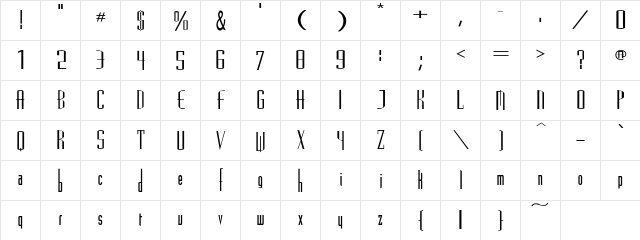
Picassos Expanded 2 Regular
Design Context for Picassos Expanded 2 Typeface
Picassos Expanded 2 takes a measured approach to typography — its balanced proportions and neutral character make it a reliable workhorse for both digital and print work.
Pro Tip: Use Picassos Expanded 2 in both headline and body roles to test its range before committing to a single application.